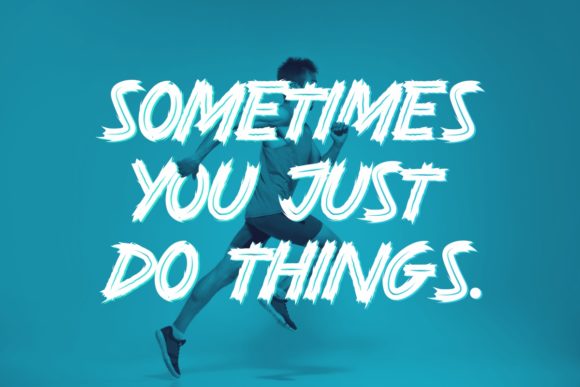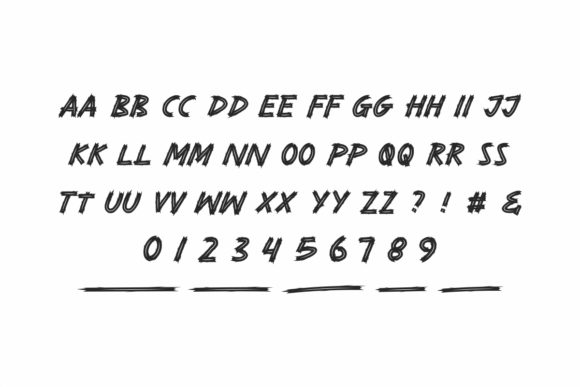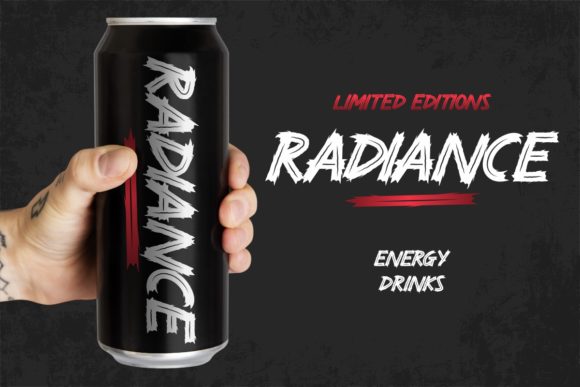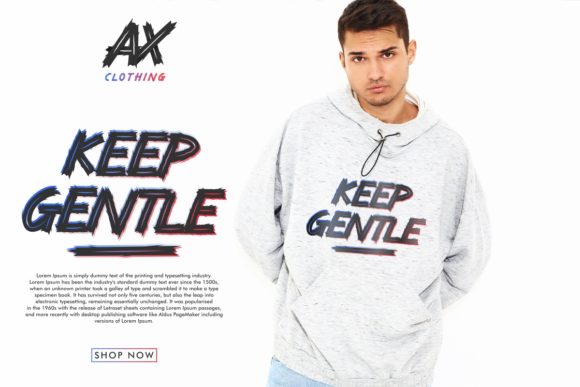
Introduction to Ruderup Font
Have you ever stared at a blank canvas, eager to bring a creative project to life, only to feel stuck by the lack of the perfect font? I know I have. The right typography can elevate an entire design, making it pop and leave a lasting impression on the viewer. That’s exactly what I experienced when I discovered the Ruderup Font.
This bold and unique display font is more than just a pretty face; it’s a game-changer for designers. With its high-quality design and transparent background, Ruderup Font adds a touch of sophistication to any project. Whether you’re working on a logo, poster, or social media graphic, this versatile font is sure to make your design stand out from the crowd.
Key Features of Ruderup Font
- High-quality typography designed for creative projects, ideal for designers and artists looking for a unique font.
- Includes a comprehensive set of characters, including uppercase and lowercase letters, numbers, and punctuation marks.
- Designed to be highly legible, with a clear and crisp appearance at various resolutions and sizes, up to 1024×1024 pixels.
Honest Review: Ruderup Font
I recently had the chance to work with the Ruderup Font, and I must say it’s been a great addition to my design arsenal. One thing that stands out about this font is its high quality, making it perfect for any creative project that demands a professional touch.
Here are some of the things that work well with the Ruderup Font:
- High-quality design that elevates any creative project
- Professional look that’s perfect for branding and marketing materials
- May not be suitable for all types of designs, especially those that require a bold or dramatic look
- Limited customization options
Overall, I’m very impressed with the Ruderup Font. Its high quality, versatility, and free download make it an excellent resource for designers. While it may have some limitations, it’s definitely worth considering for any creative project that demands a professional touch.
Tips for Getting the Most Out of Ruderup Font
Use the Ruderup Font in conjunction with a transparent background to create visually appealing designs. Experiment with different font sizes and styles to add depth and variety to your creative project.
Common Use Cases for Ruderup Font
The Ruderup Font is suitable for a wide range of design applications, including branding, marketing materials, and digital graphics. Its high-quality design makes it an excellent choice for designers seeking a versatile and reliable font.
Alternatives to Ruderup Font
Ruderup Font is a popular choice among designers for its elegant and sophisticated look. However, if you’re looking for other high-quality design resources, consider the following alternatives.